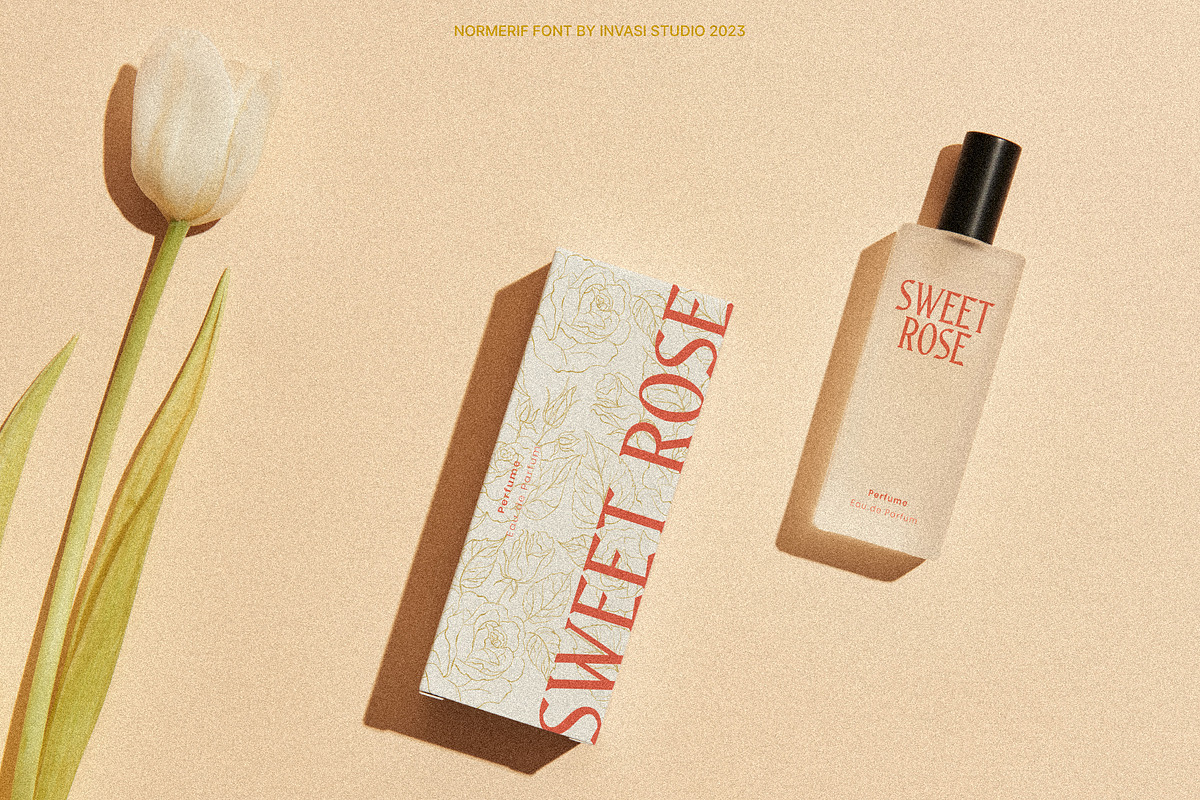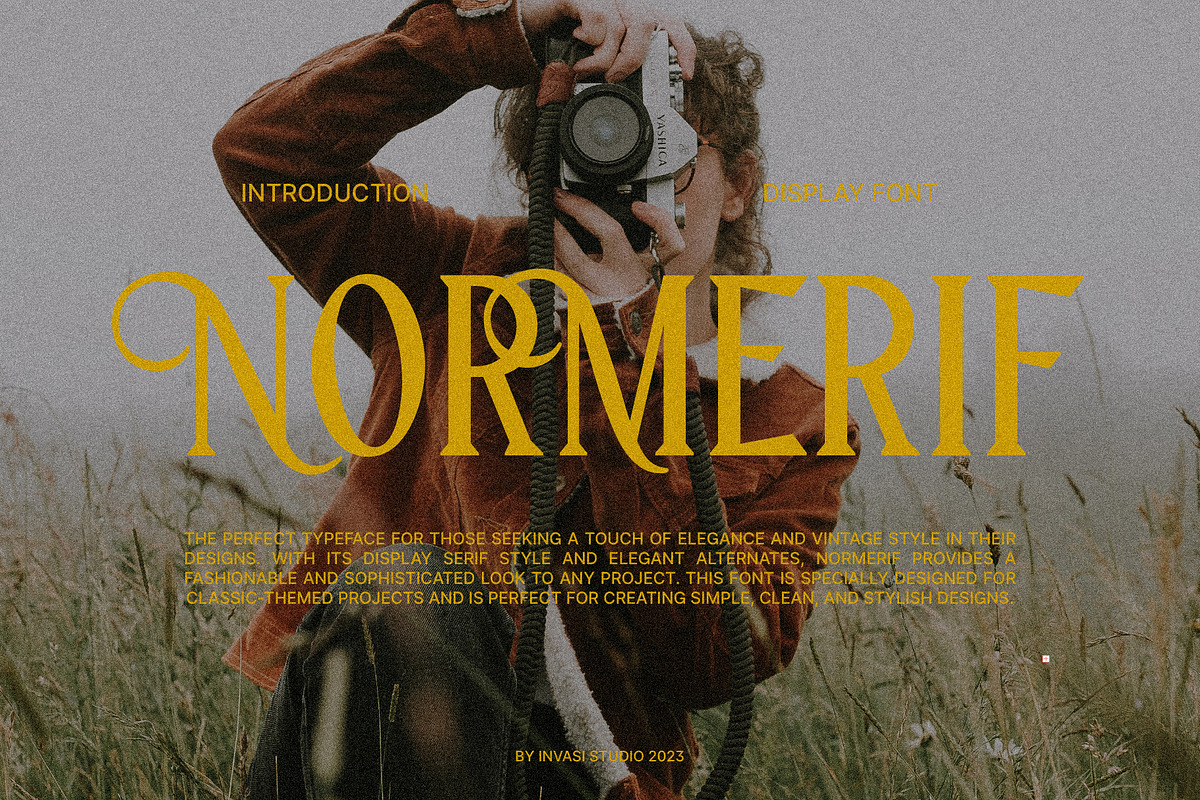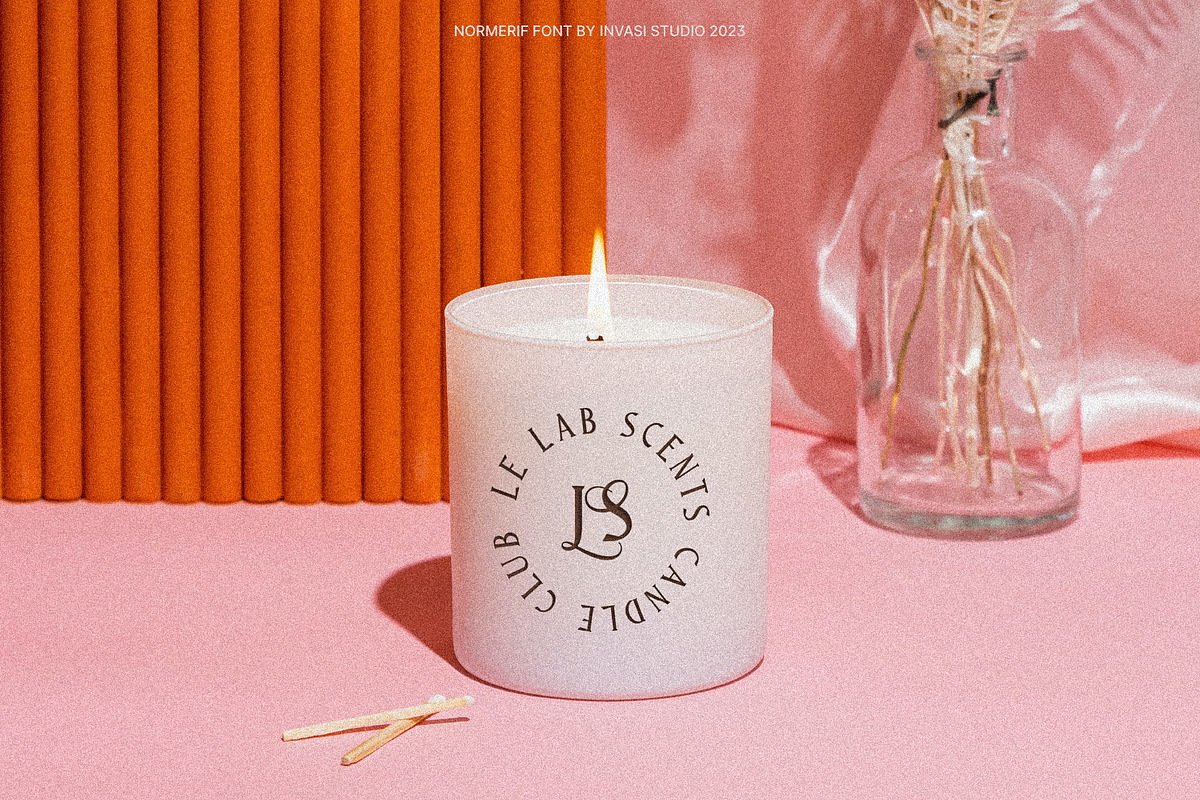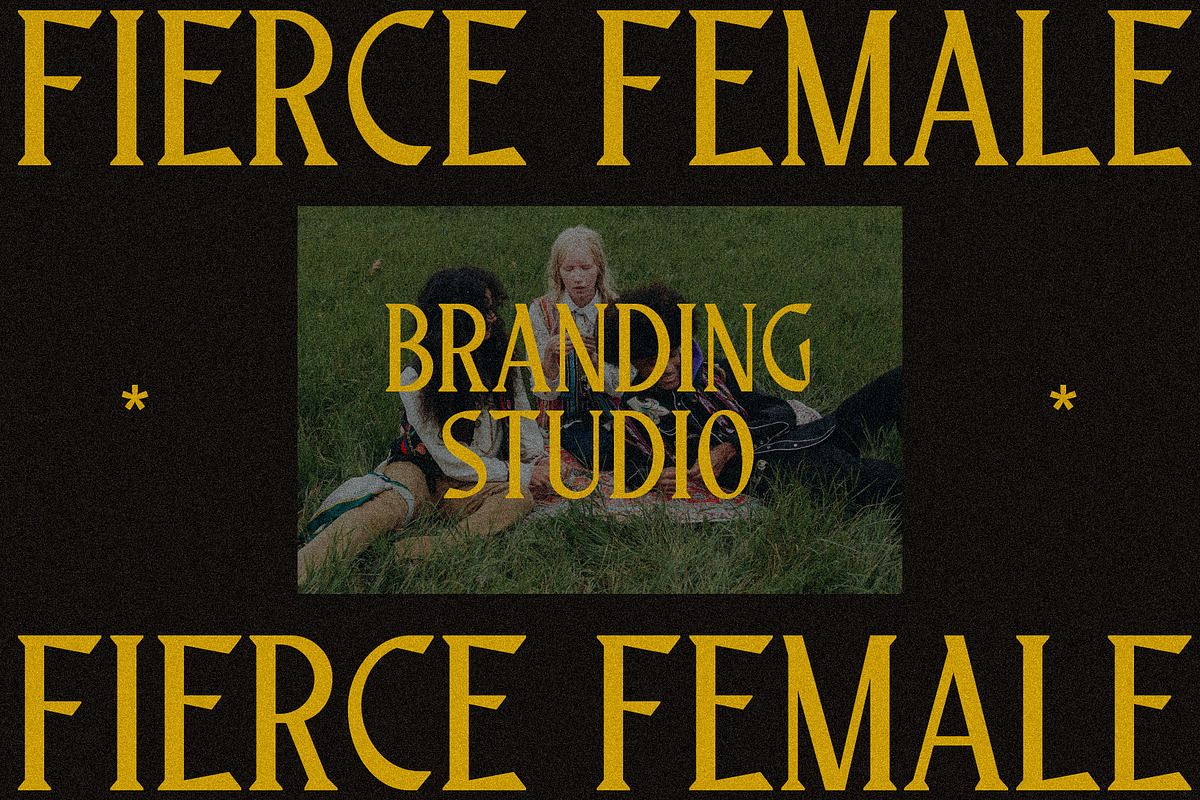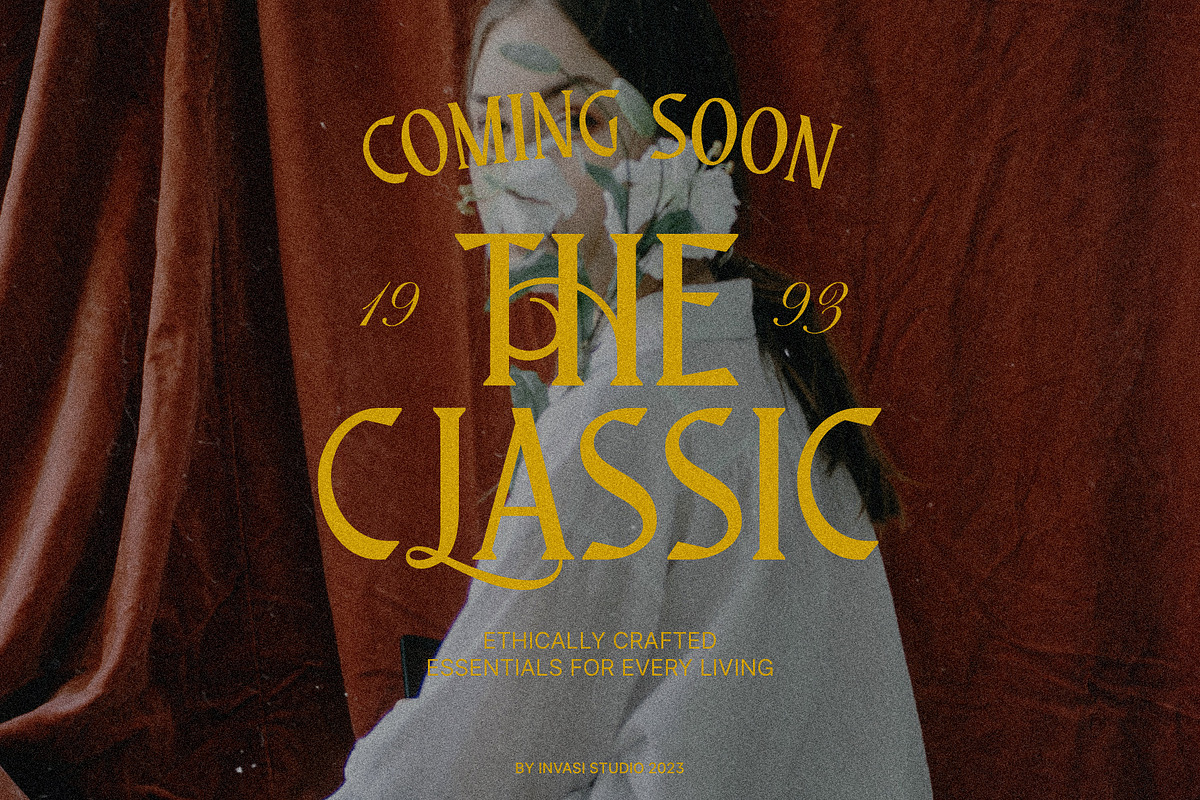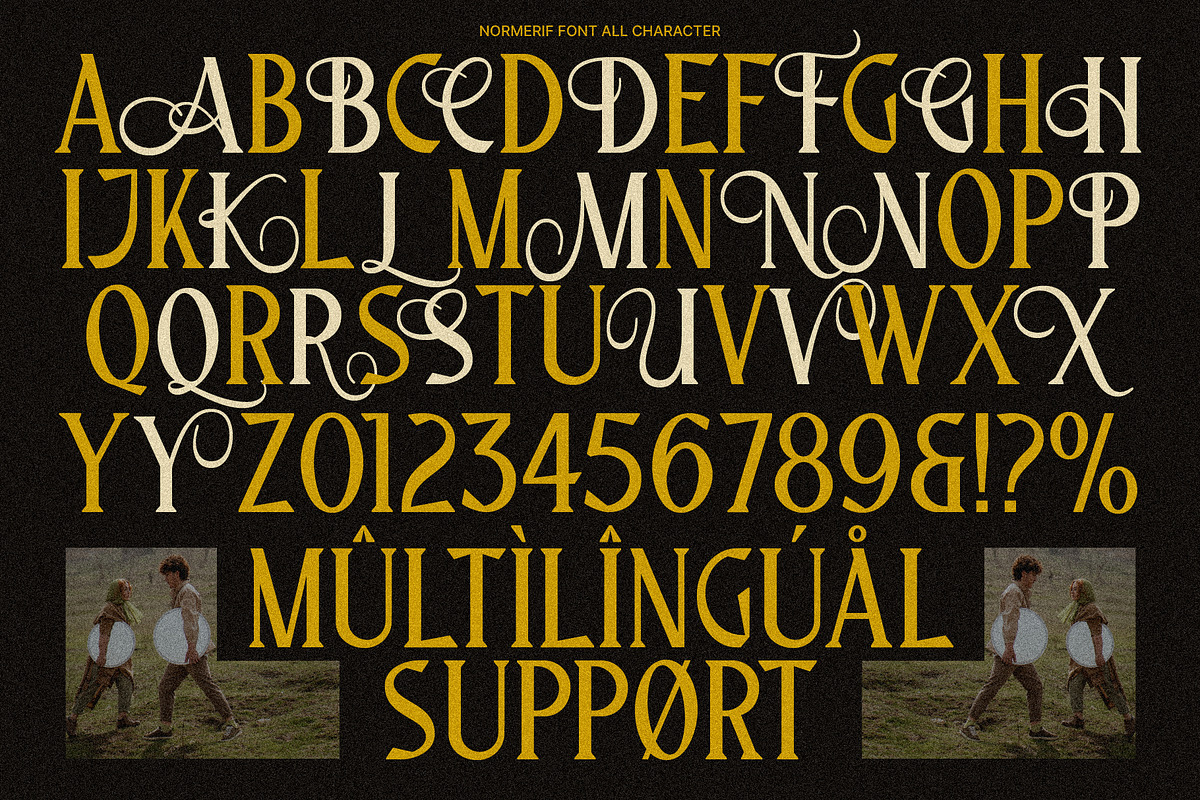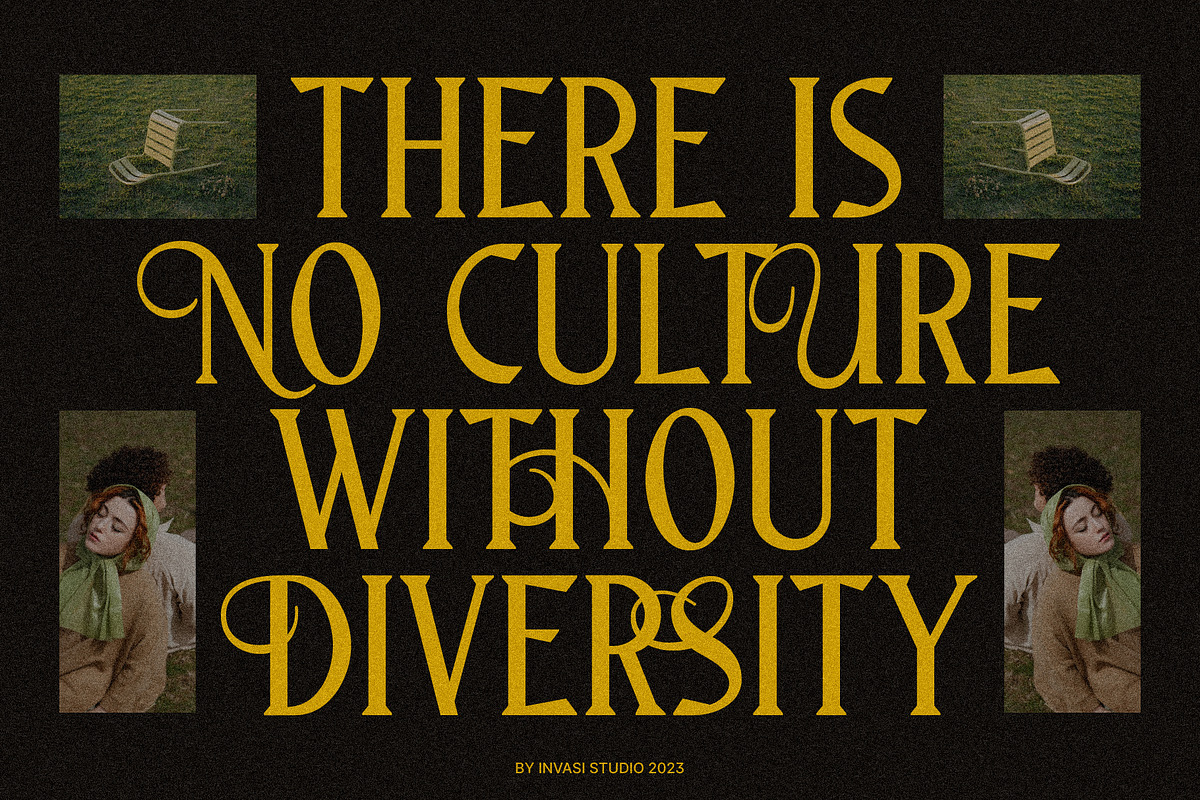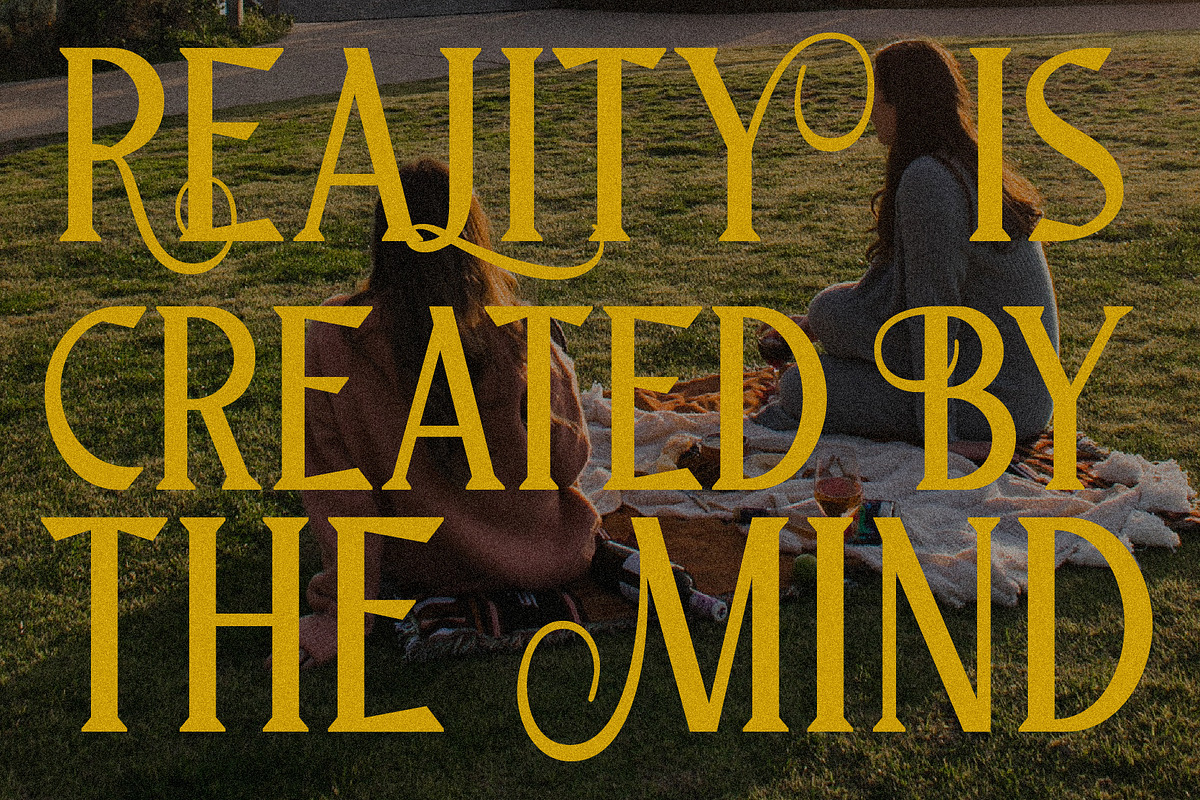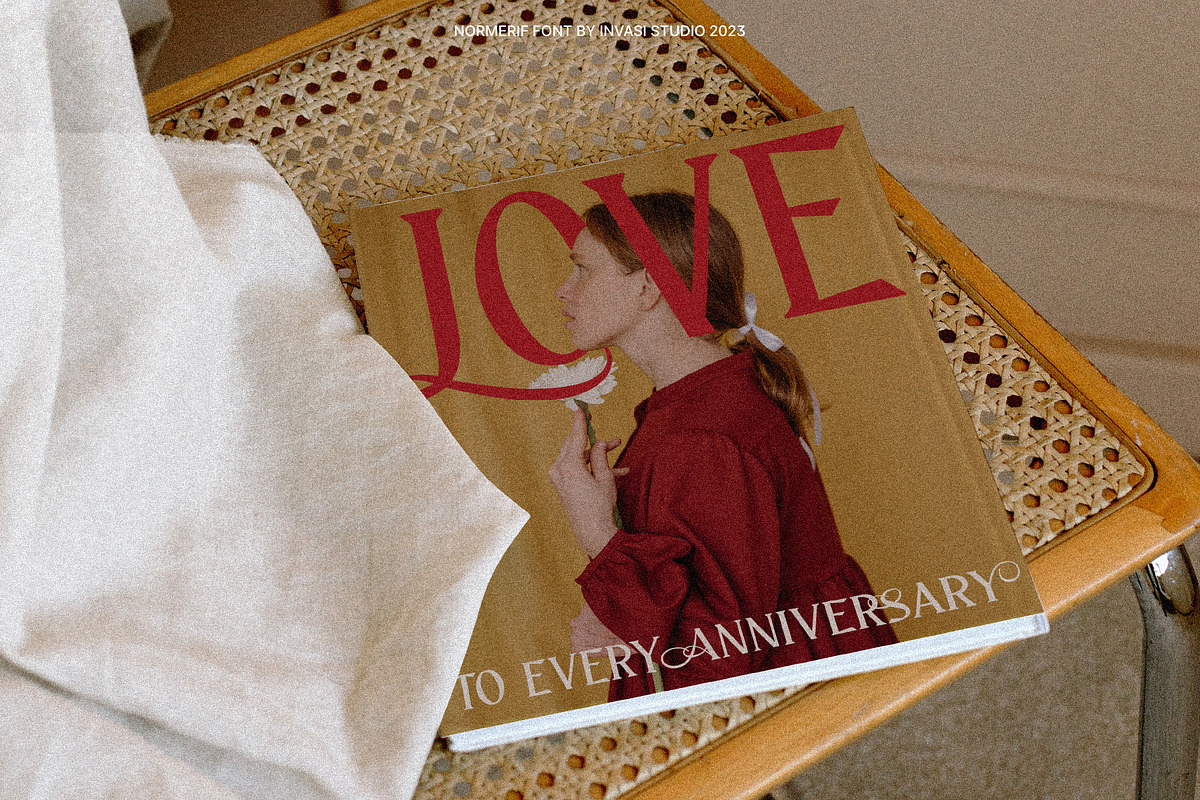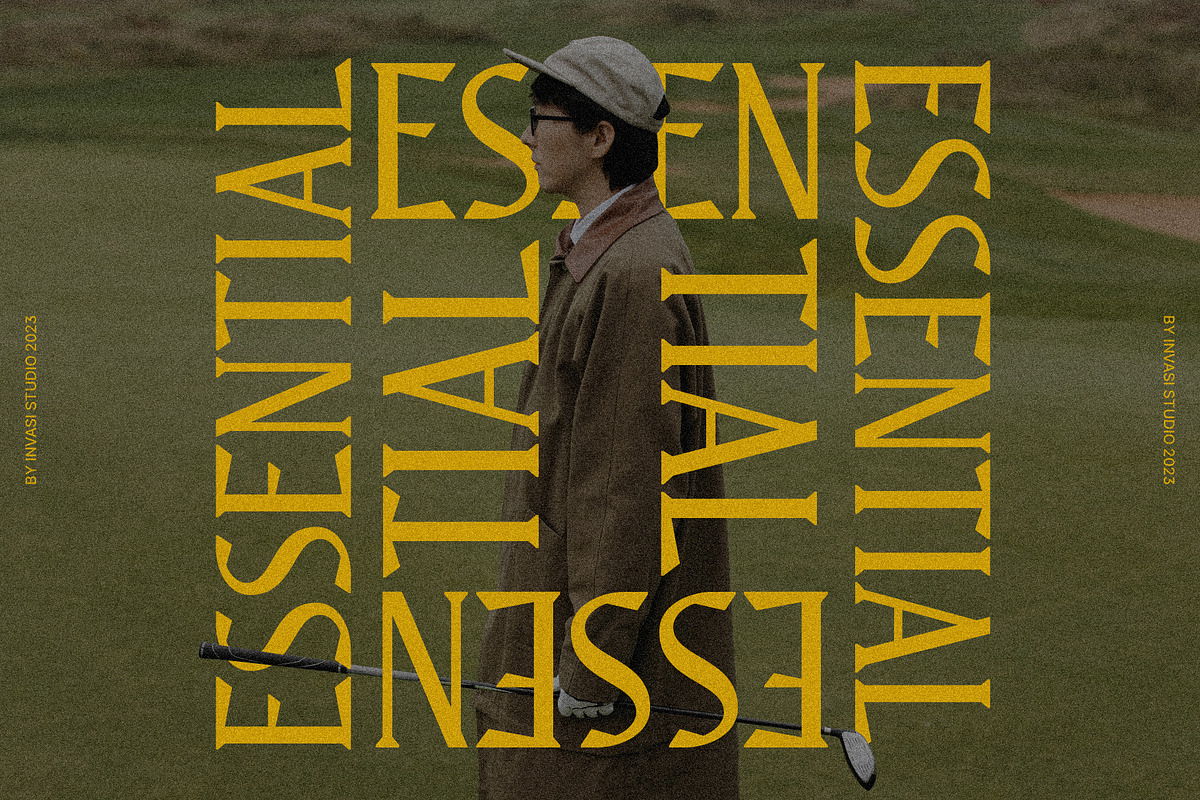
Normerif - Elegant Display Serif
Introducing the Normerif Font, the perfect typeface for those seeking a touch of elegance and vintage style in their designs. With its display serif style and elegant alternates, Normerif provides a fashionable and sophisticated look to any project. This font is specially designed for classic-themed projects and is perfect for creating simple, clean, and stylish designs.
Whether you're looking to create logos, titles, magazines, or any other design project, Normerif is a perfect choice. Its elegant and refined serif style makes it suitable for a wide range of design applications, including print materials, websites, and more. The font features stylish alternates, which add a touch of sophistication and elegance to your designs.
So if you're looking to add a touch of class and sophistication to your next project, look no further than Normerif Font. With its elegant and fashionable style, this font is perfect for creating simple, clean, and stylish designs that will make your projects stand out.
- Total 231 Glyph
- Multilanguage Supports 60+ Latin-based languages